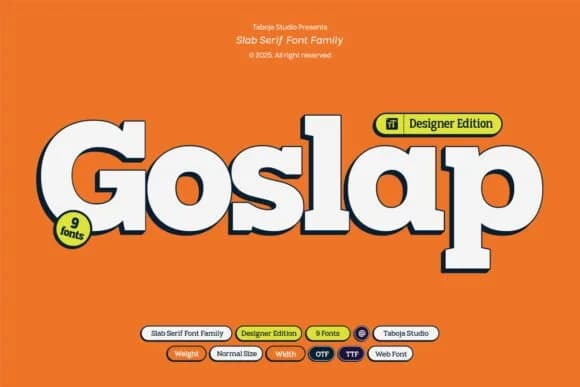
This slab serif brings a touch of mid-century confidence to contemporary work. Goslap, created by Taboja Studio, merges thick, geometric letterforms with playful details that catch the eye without tipping into novelty territory.
The nine variable styles give you genuine flexibility across projects of any scale, from delicate headlines to commanding statements. Luxury packaging for boutique skincare brands benefits from its sophisticated proportions, while editorial layouts and magazine spreads gain immediate visual impact. Corporate identity systems often lean on Goslap's character and presence when they need to feel both modern and memorable. Event posters showcase its bold geometry beautifully, social media graphics get an instant boost in personality, and logotypes designed with it feel distinctive without relying on cheap decorative tricks. Its inktrap detailing adds a layer of printed craft to every letterform, signaling careful technical work rather than generic off-the-shelf type solutions. You also get alternates and ligatures that offer precise control over spacing, flow, and how individual characters interact with one another.
Pair it with a clean, neutral sans-serif for supporting body text to keep your hierarchy clear and readable. Grab Goslap on Creative Fabrica and start building work with real visual substance and presence.
Goslap Font is a slab serif font that shines as a display or heading face. Pair it with a clean sans-serif or serif font for body text β the contrast creates a clear hierarchy while the two styles stay balanced and easy to read.